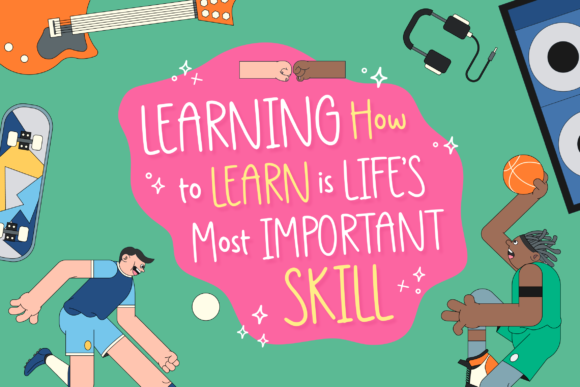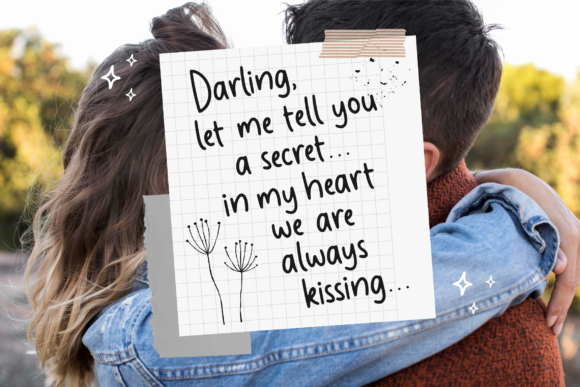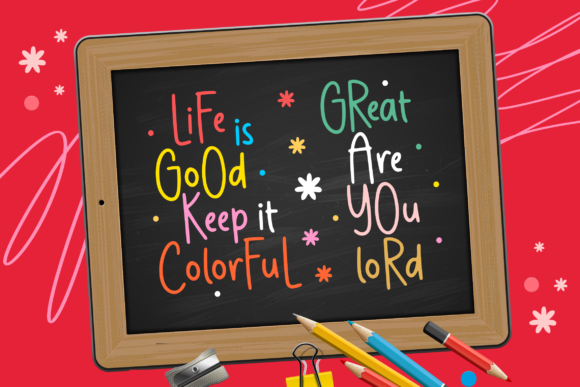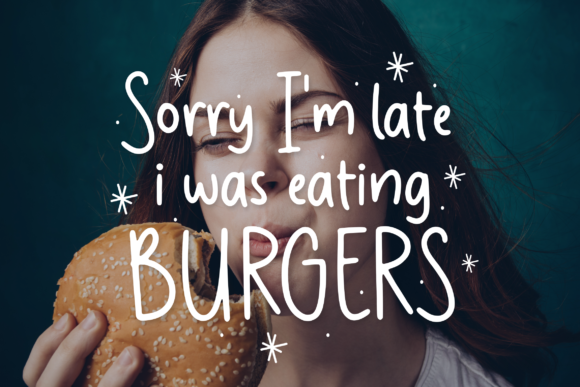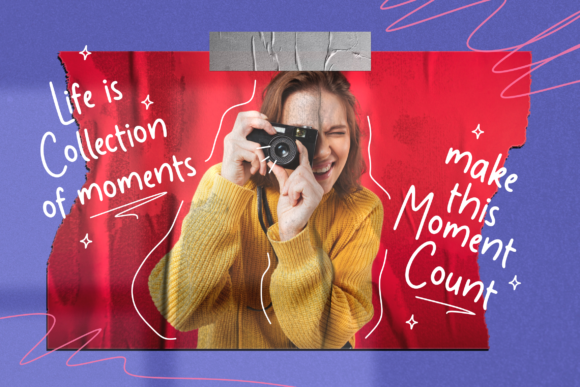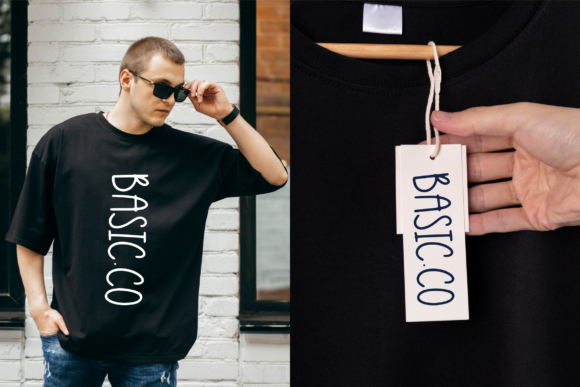
Introduction to Luckymoon Font
Remember the thrill of creating a handmade birthday card for a loved one? The joy of crafting something special with your own two hands? That’s exactly the feeling you can evoke in your designs with the Luckymoon Font. This delicate handwritten font is a treasure trove of playfulness and authenticity, making it the perfect choice for any children’s activity or school project.
As designers, we’re always on the lookout for high-quality design resources that can bring our creative projects to life. The Luckymoon Font is a valuable addition to any design toolkit, offering a transparent background and a free download option that makes it accessible to designers of all levels.
Key Features of Luckymoon Font
- Features a transparent background, allowing for seamless integration into designs
- Resolution: Optimized for high-resolution displays (Retina-ready)
- Unique, modern design aesthetic with a touch of whimsy, making it perfect for creative projects
Honest Review: Luckymoon Font
As a designer, I’m always on the lookout for high-quality design resources to elevate my creative projects. Recently, I had the chance to work with the Luckymoon Font, and I’m excited to share my honest review.
- ✨ The Luckymoon Font has a beautiful, modern aesthetic that’s perfect for any design project.
- ✨ The font is incredibly versatile and can be used for a wide range of creative applications, from logos to typography.
- ⚠️ The font does have some limitations when it comes to transparency – the transparent background can sometimes be a bit finicky.
- ⚠️ The font family is relatively small, so you may find yourself relying on other fonts to supplement your design.
Overall, I’m impressed with the Luckymoon Font. While it’s not perfect, it’s a solid design resource that’s well-suited for most creative projects. The modern aesthetic and free download option make it a great choice for designers looking to elevate their work without breaking the bank.
Common Use Cases for Luckymoon Font
The Luckymoon Font is perfect for creative projects such as logos, brochures, and social media graphics. It’s also great for use in presentations, documents, and websites.
Alternatives to Luckymoon Font
Pacifico Font is a high-quality, elegant script font that’s perfect for creative projects, especially those requiring a touch of sophistication and refinement. It features a transparent background, making it ideal for use on light-colored backgrounds. When to use: Headings, titles, and quotes. It compares to Luckymoon Font in terms of its elegant and refined feel, but has a more relaxed, casual tone.
Great Vibes Font is a beautiful, handwritten font that’s ideal for designers seeking a free download for their design resource. It features a mix of bold and elegant strokes, making it suitable for a wide range of creative projects. When to use: Titles, headings, and body text. It compares to Luckymoon Font in terms of its playful and carefree feel, but has a more energetic and dynamic tone.
Alex Brush Font is a high-quality, elegant script font that’s perfect for designers seeking a sophisticated and refined design resource. It features a transparent background, making it ideal for use on light-colored backgrounds. When to use: Headings, titles, and quotes. It compares to Luckymoon Font in terms of its elegant and refined feel, but has a more subtle and understated tone.